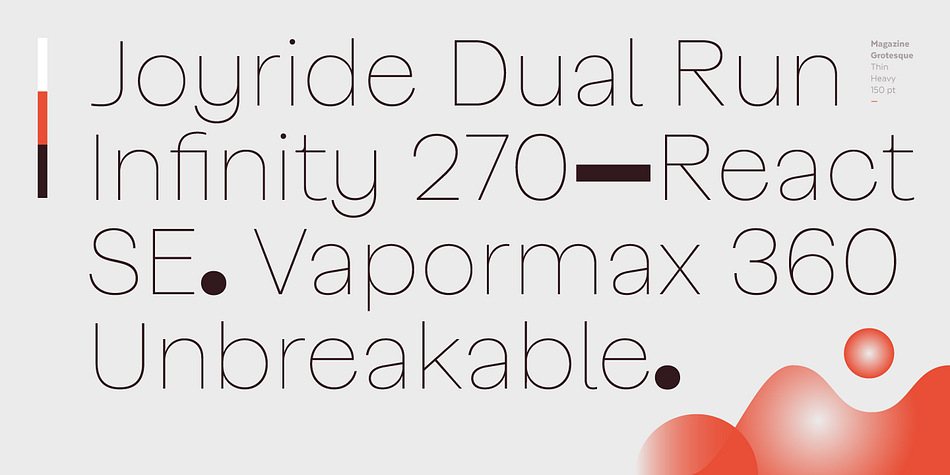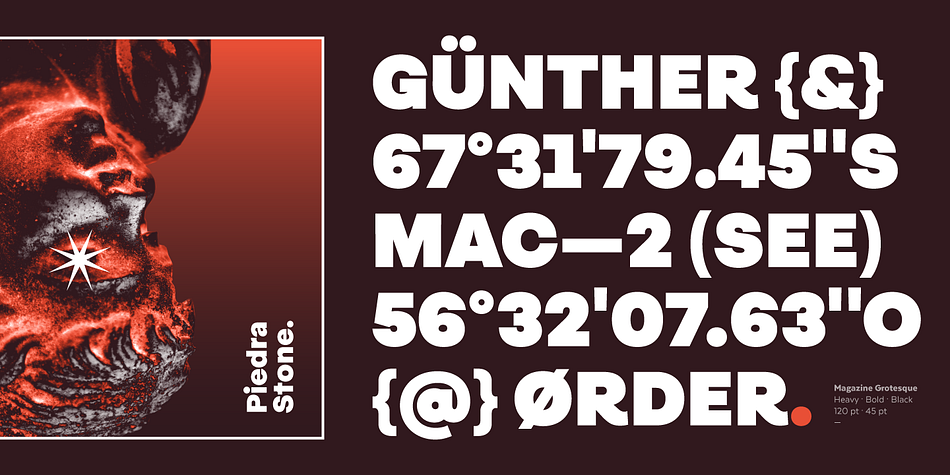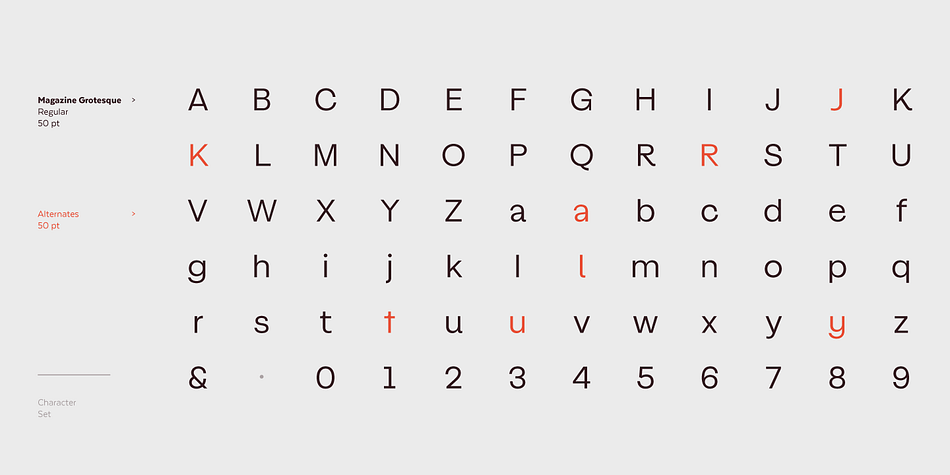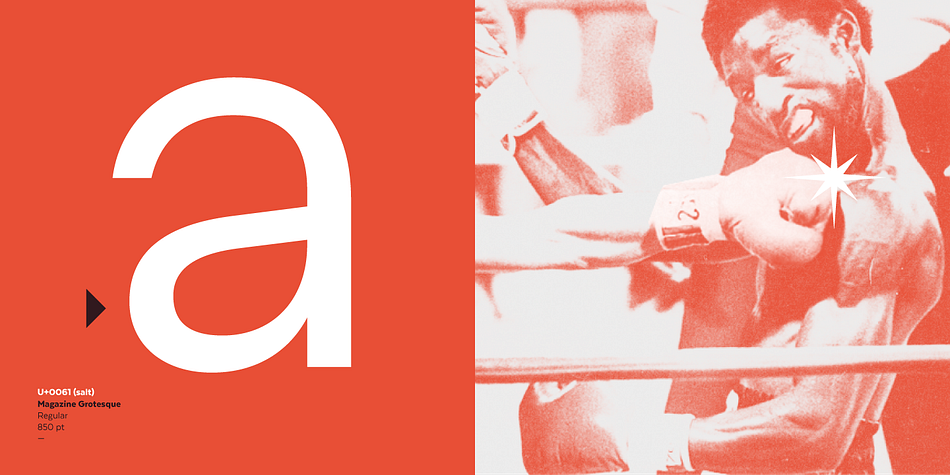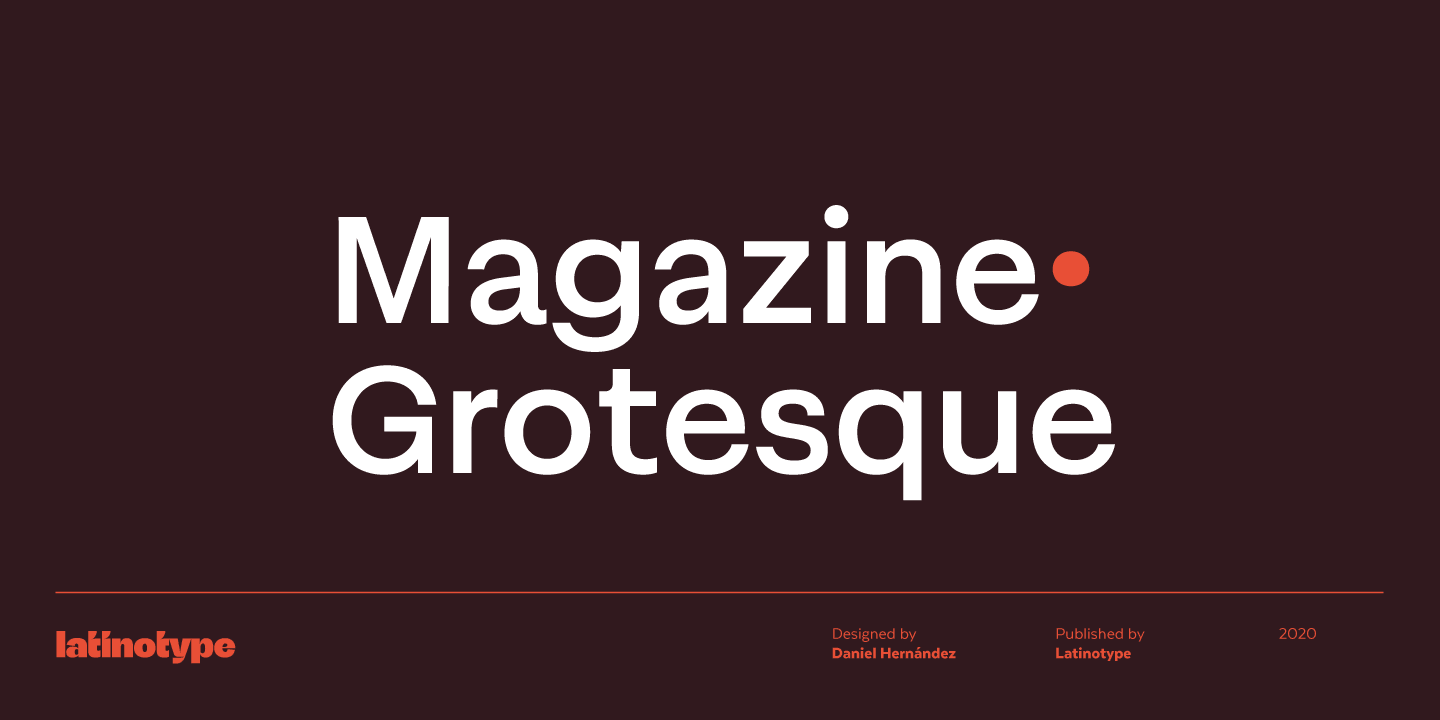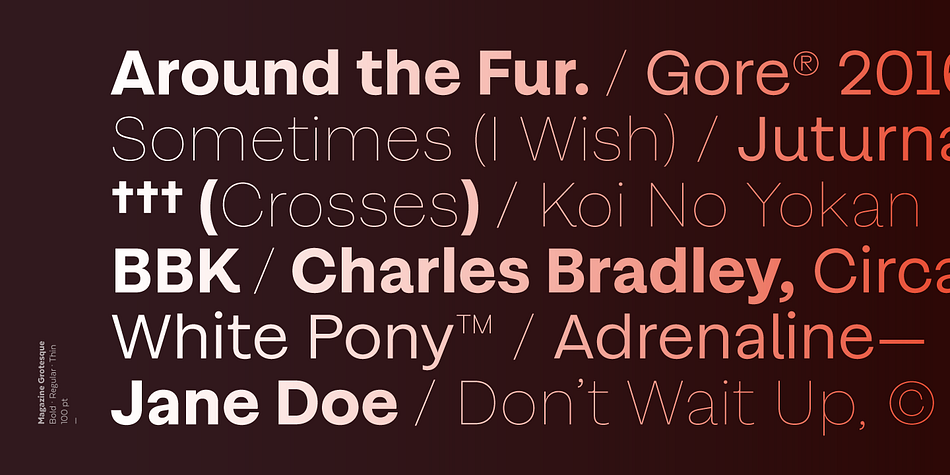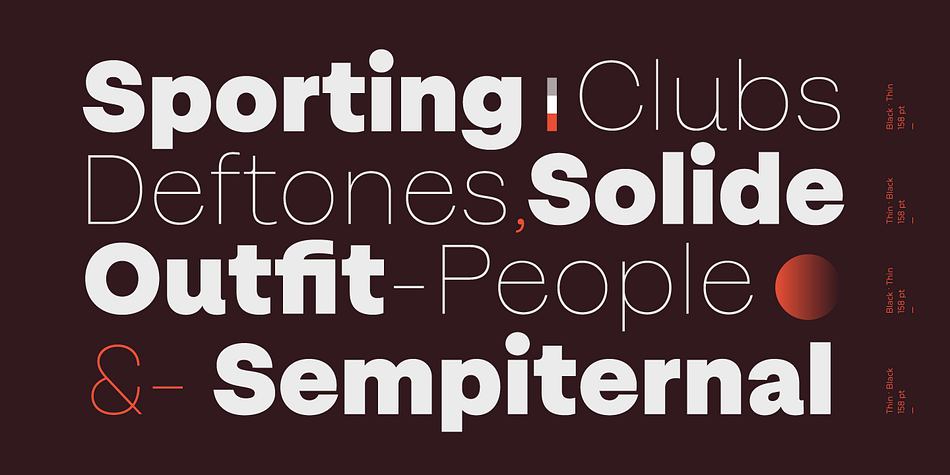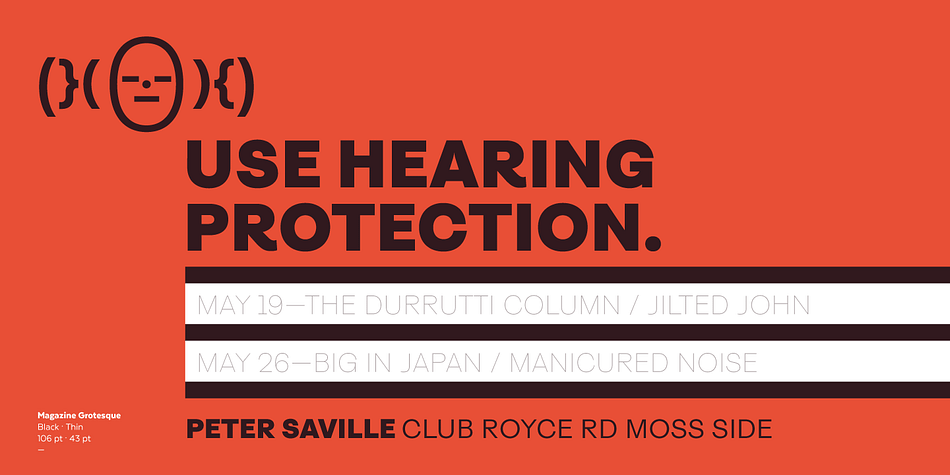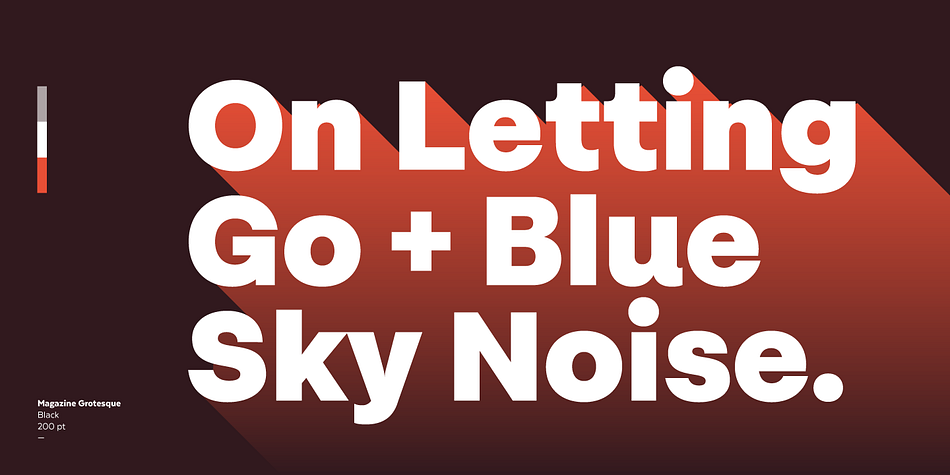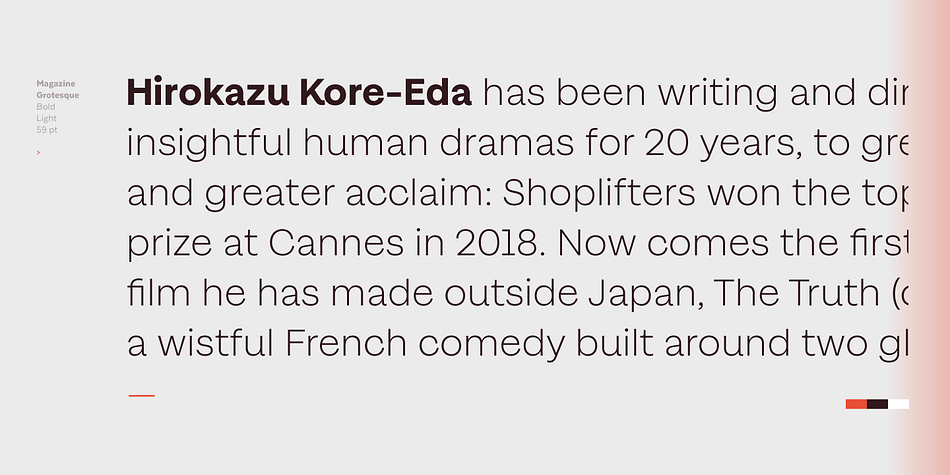
Designed by Daniel Hernández, Magazine Grotesque is a sans serif font family. This typeface has eight styles and was published by Latinotype.
Magazine Grotesque is a sans-serif font specially designed for headlines and titles. Its unique features make it different from the traditional Grotesk typefaces. For example, outstroke extending beyond body in ‘a’ and ‘e’ letters or closed aperture in ‘c’, creating an unusual rhythm. Magazine Grotesque is the perfect choice for logos, titles, headlines and short blocks of text. As you would expect from Latinotype, this face comes with a standard set of 487 characters that support over 200 Latin-based languages.